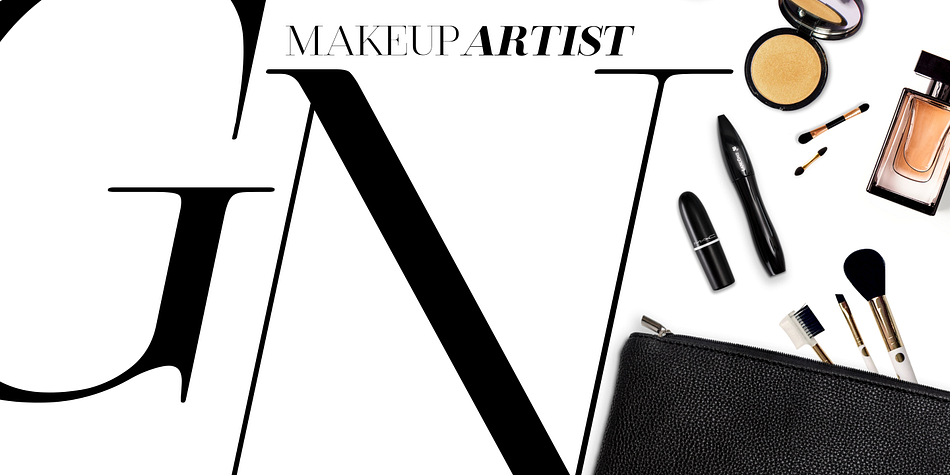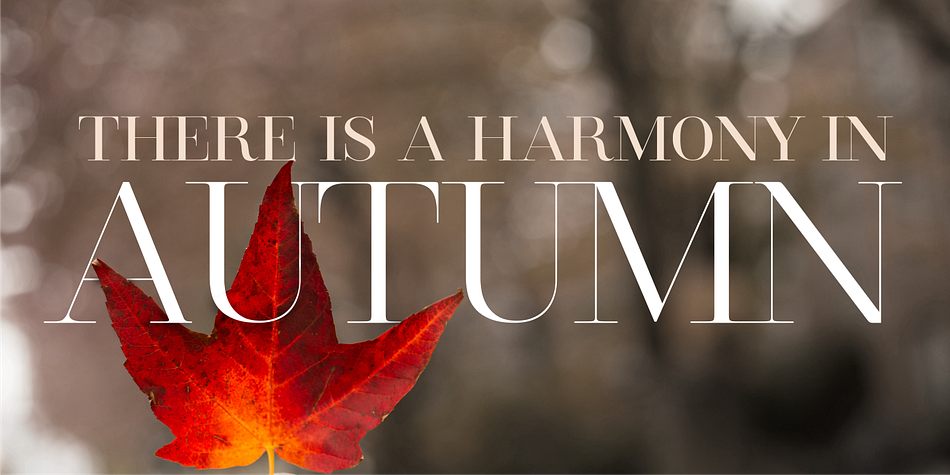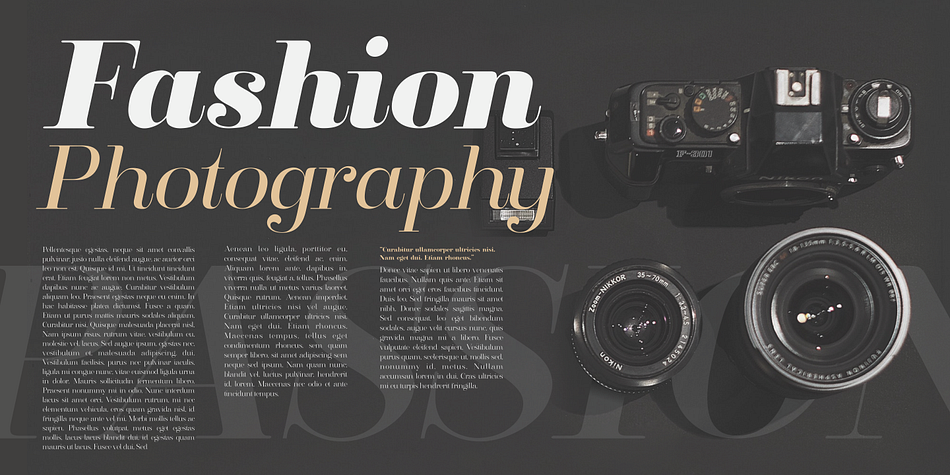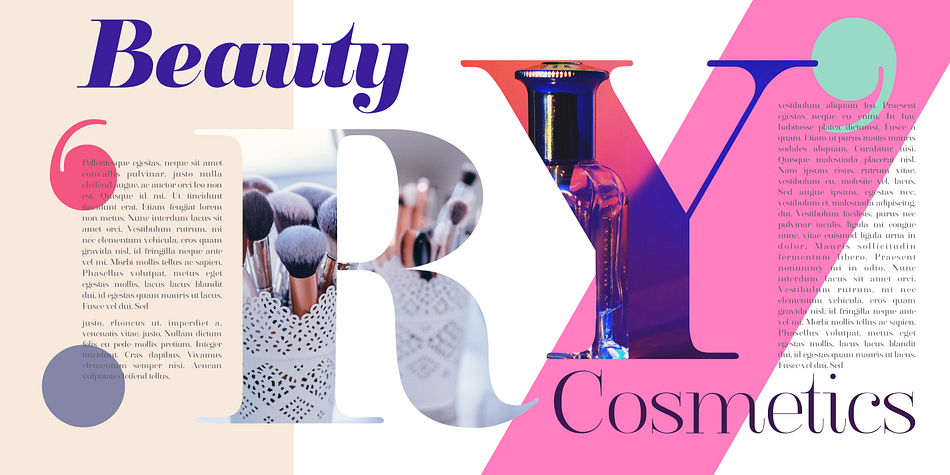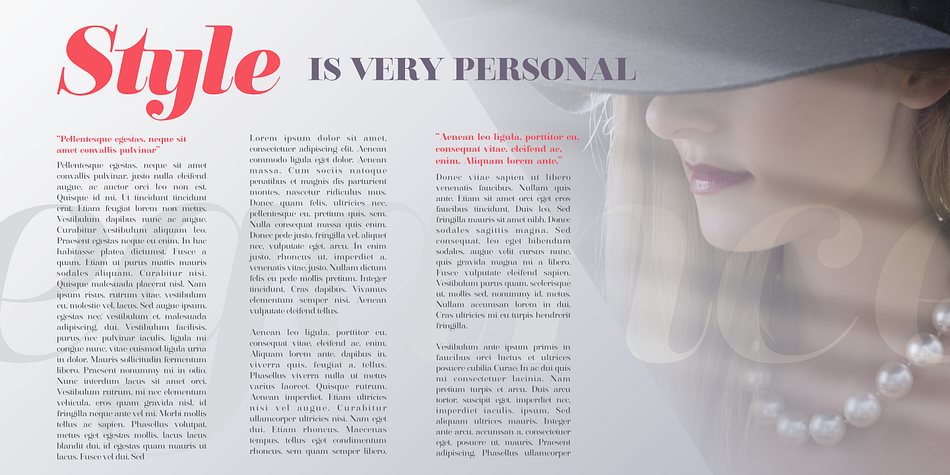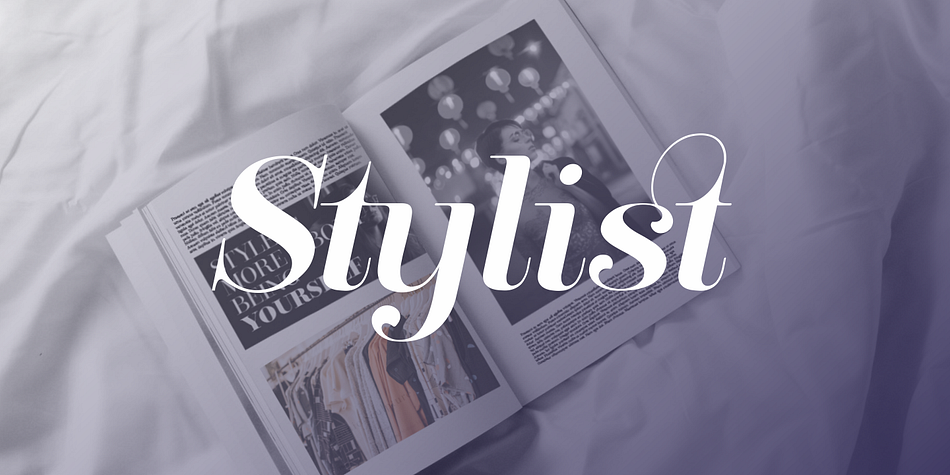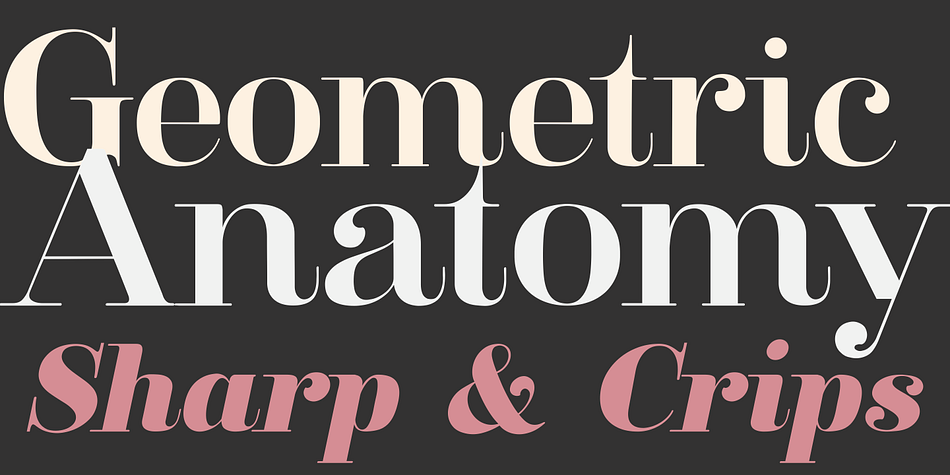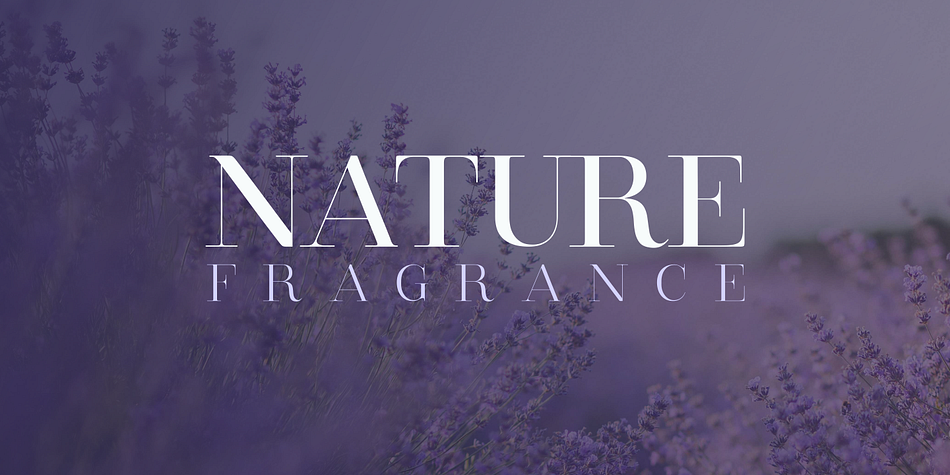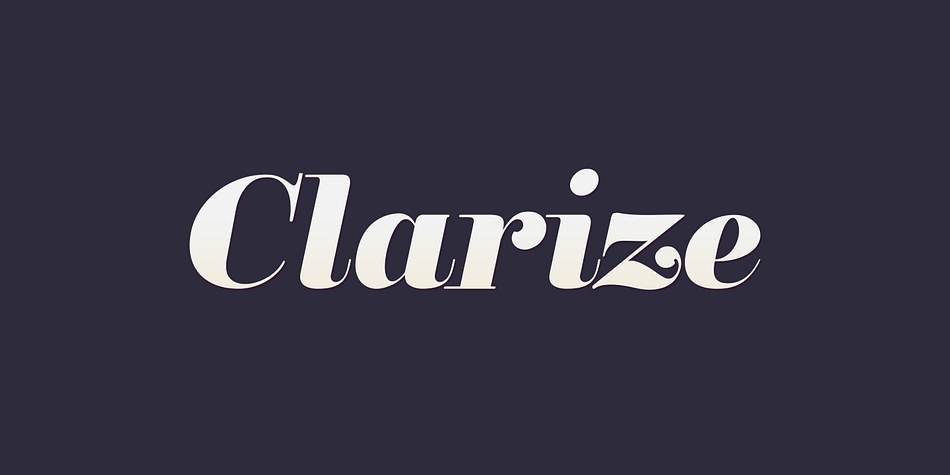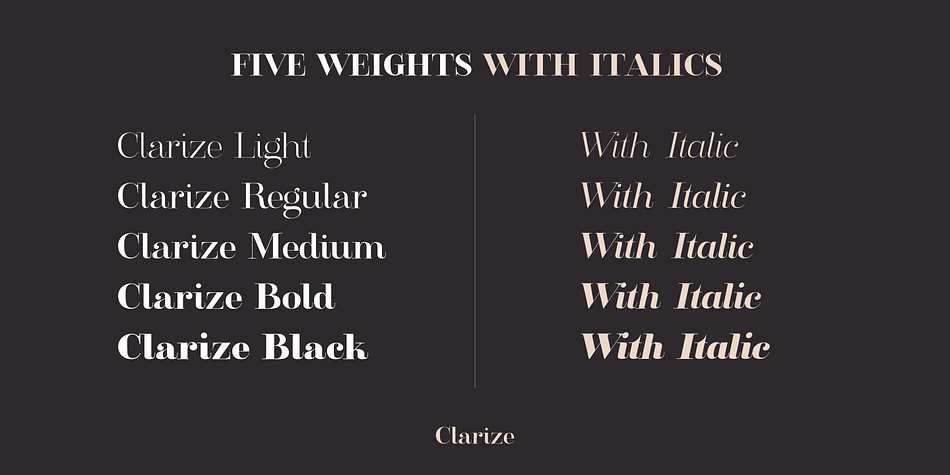
Designed by Cucu Supriyadi, Clarize is a serif font family. This typeface has ten styles and was published by Seventh Imperium.
Clarize is an elegant high contrast serif fonts family, with the best features of the Didone style.
Designed with consideration for more functionality with smooth details and a touch of modern and luxury, this font is perfect for designers who are developing in the field of books, fashion, magazine, blog, advertising, packaging, branding, etc.
The family includes 10 styles: five weights from Light to Black Multilingual Languages. Clarize includes Ligature and discretionary “ct” and “st” that can be accessed via an access feature.